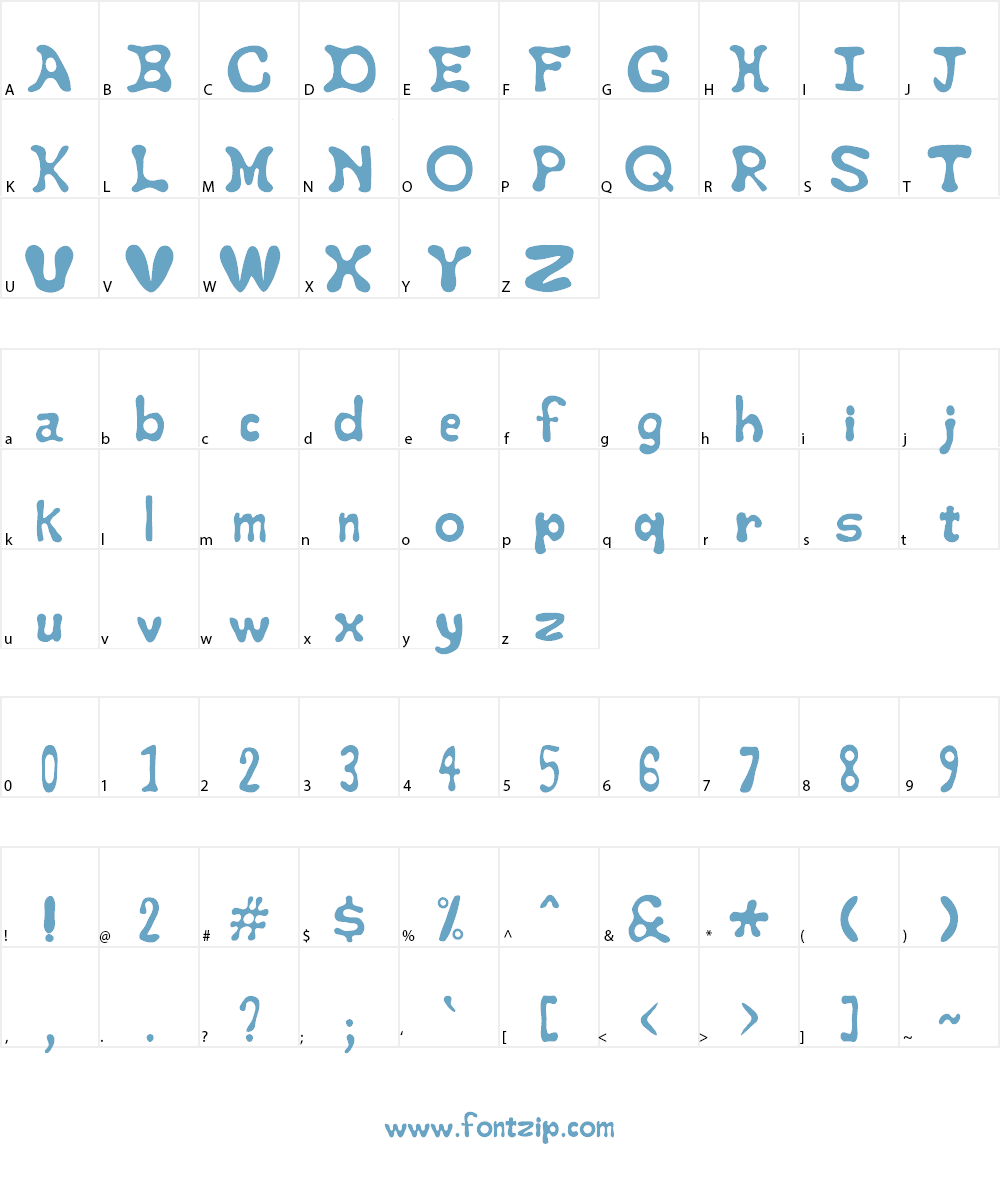
Not a very impressive piece of work, but fun. I sat down to fiddle with pfaedit, and started seeing what I could do freehand, with minimal splines. The result was all rounded (not surprising), sort of marshmallowy, and I started thinking of it as the Stay-Puft Marshmallow Font (see Ghostbusters if you don't get it). Once I had a name, I felt compelled to round out the font (ISO 8859-1, at least). The outcome looks sort of like Comic Sans MS. It's kind of cute, and might be good for frivolous stuff such as birthday cards. I've used it on my National Academy of Silly Walks merchandise.